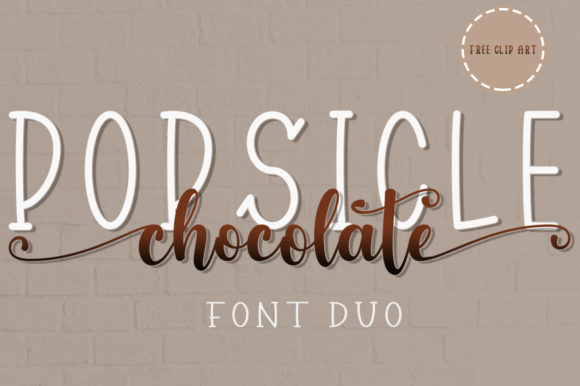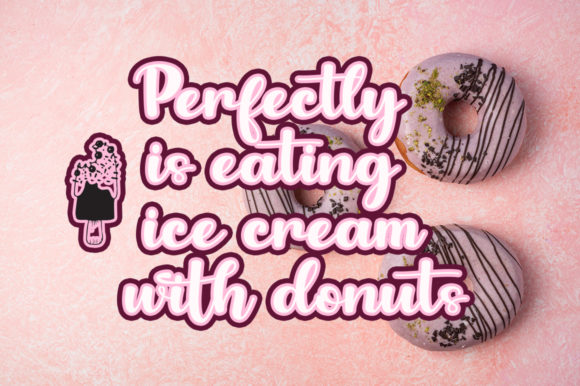
Popsicle Chocolate Font
About the Popsicle Chocolate Font
Get ready to be inspired by Popsicle Chocolate Font, a fresh and dynamic typeface for modern creators. Popsicle Chocolate is a superb duo styled handwritten font with cute dessert elements. Simple and easy to use, this font will be very beautiful if you mix it with your various craft designs.
Popsicle Chocolate’s playful, yet refined aesthetic makes it ideal for branding projects targeting a young, fun-loving audience, particularly in food, beverage, or children’s products. It works exceptionally well in headlines, short taglines, and logos, adding a touch of handcrafted charm. Avoid using it for large blocks of text or body copy; its handwritten nature makes extended readability challenging.
Pairing it with a clean sans-serif like Montserrat or a geometric sans-serif such as Bebas Neue will create a balanced design, allowing Popsicle Chocolate’s unique character to shine without overwhelming the layout. For a more whimsical feel, consider a playful script font.
Its inherent friendliness and approachability make it unsuitable for projects requiring seriousness or formality. Applications such as packaging, social media graphics, and invitations are perfect showcases for its charm.
Popsicle Chocolate Font Usage Examples
Popsicle Chocolate Font Example